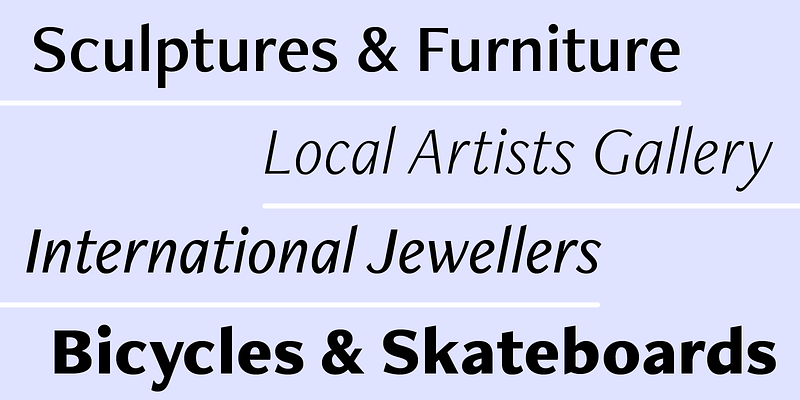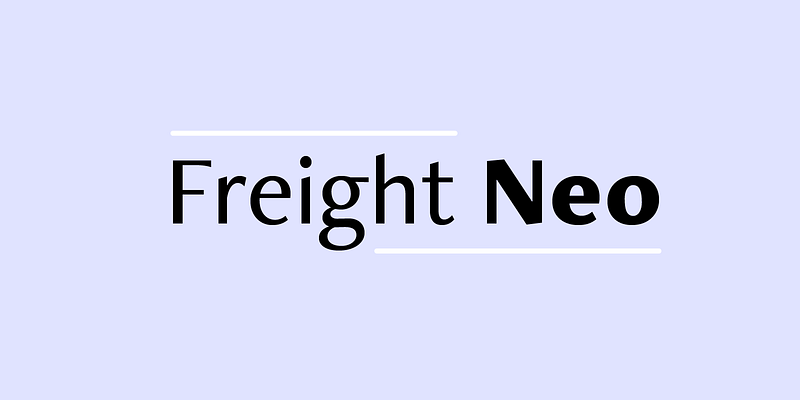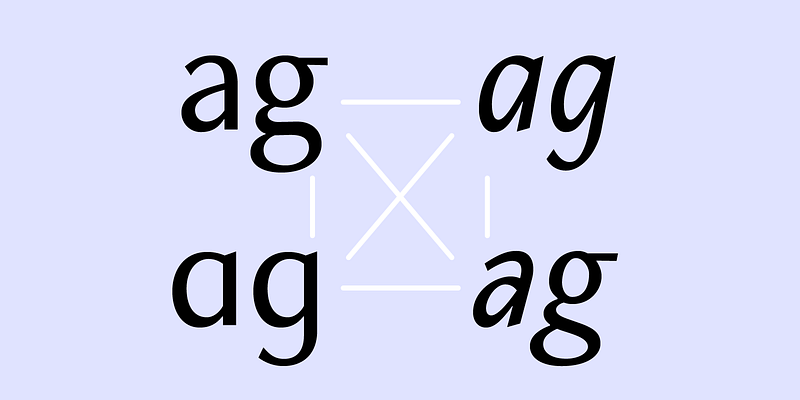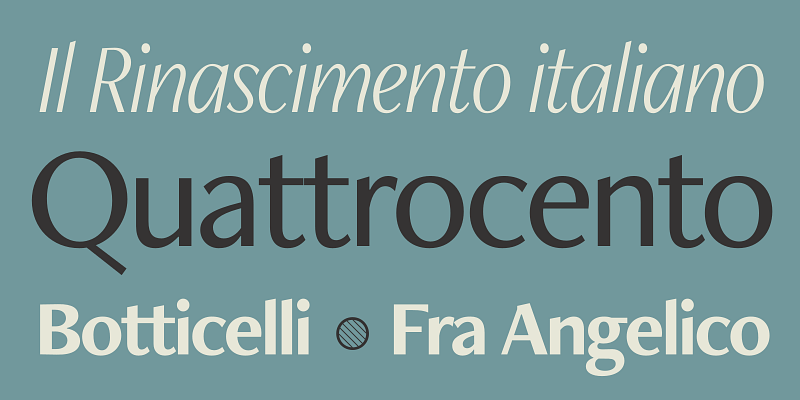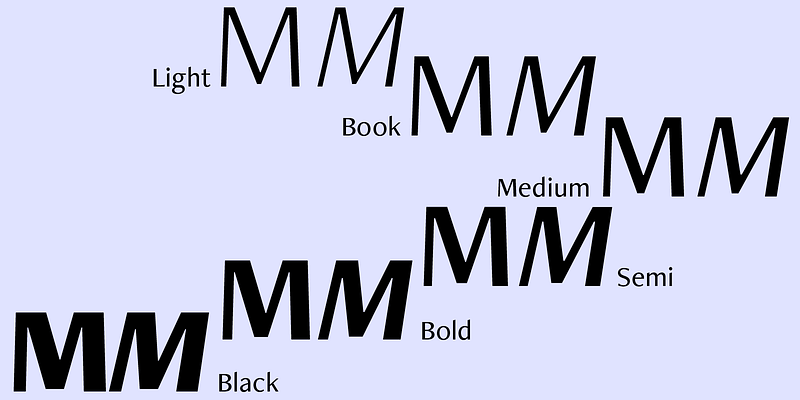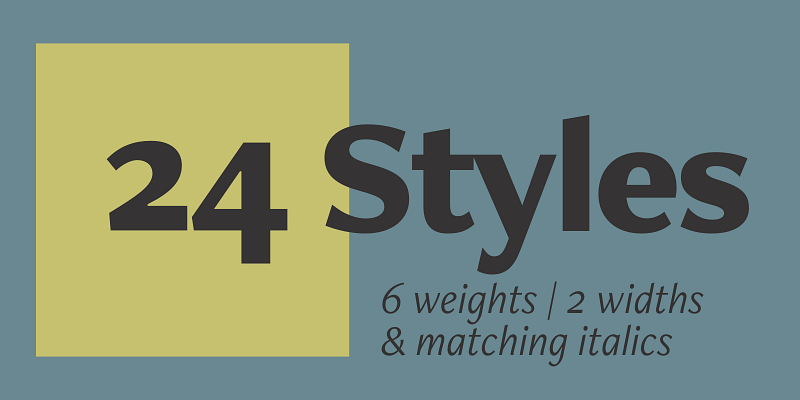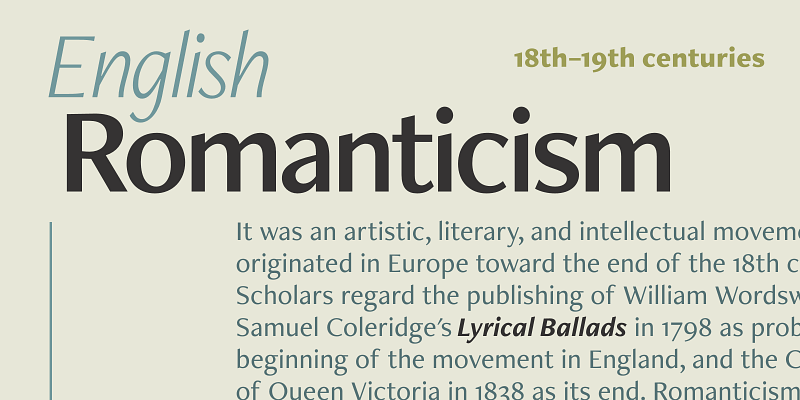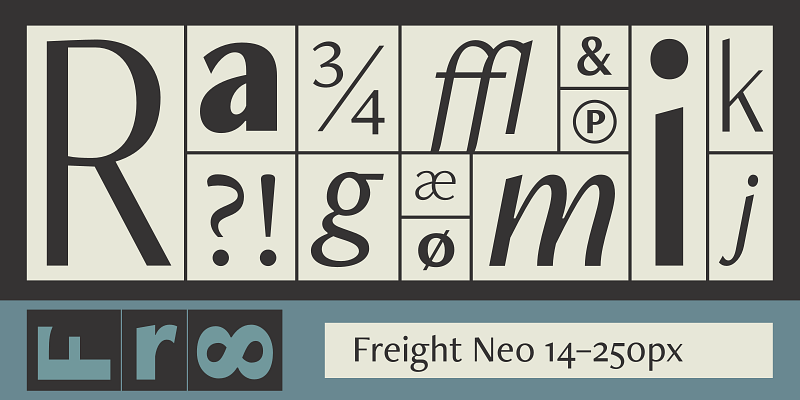
The Freight Collection
The Freight Collection comprises a compelling array of intertwined typeface families ready to add unique style to any project. What Joshua Darden started as a serif family inspired by the warmth and pragmatism found in 18th-century Dutch typefaces now ranges across multiple weights, widths, and optical sizes — from Big, Display, Text, Micro, Macro, and Sans — all of which include companion italics. That’s 156 fonts that can be bold and daring as effortlessly as they can be quiet and unassuming.